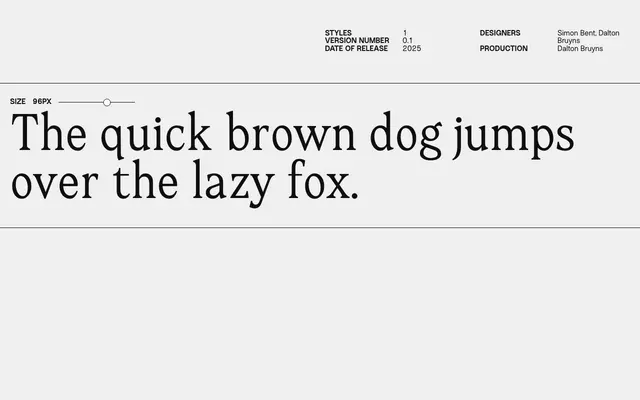
MT Callisto
Modern Type · Simon Bent, Dalton Bruyns · 2025
A single-weight serif released in 2025 by Simon Bent and Dalton Bruyns under the Modern Type foundry.
MT Callisto is a one-style serif at version 0.1, suggesting an early or deliberate minimal release. Designed by Simon Bent and Dalton Bruyns, with production credited to Dalton Bruyns, it offers a single Regular weight with no italic or condensed companions at this stage. The limited specimen and early version number indicate the typeface may see further development.
The name and single-style release offer limited classification signals, but the specimen text and foundry context suggest a traditional serif design; classified as transitional serif pending further evidence.